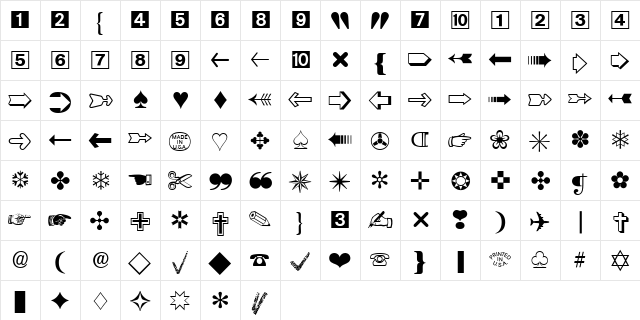
Complete Zapf Dingbats Three Hundred BQ Regular glyph index. Displaying only characters natively supported by Zapf Dingbats Three Hundred BQ Regular font.
Zapf Dingbats Three Hundred BQ is a composed and adaptable typeface that performs quietly and consistently across a wide range of design contexts.